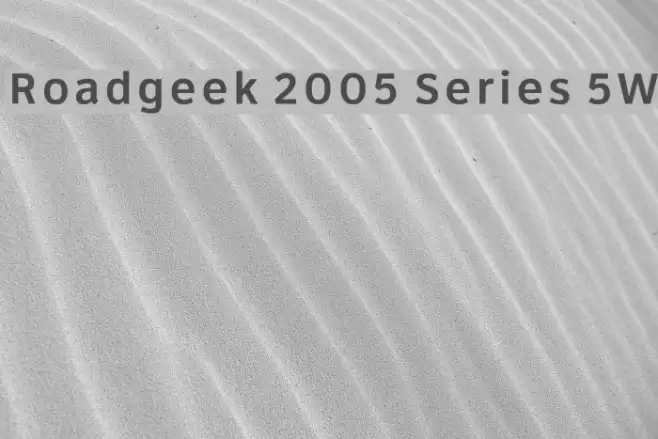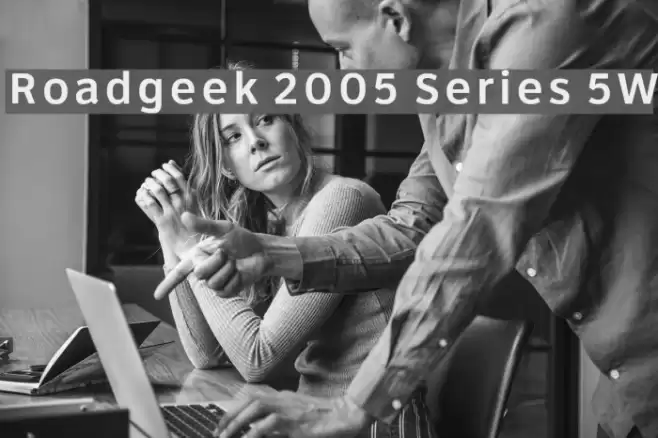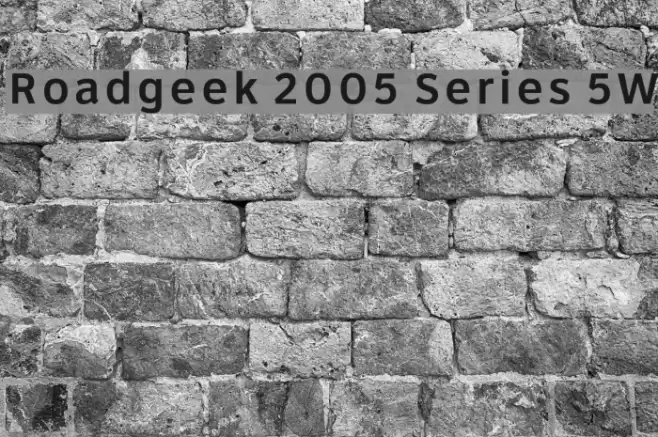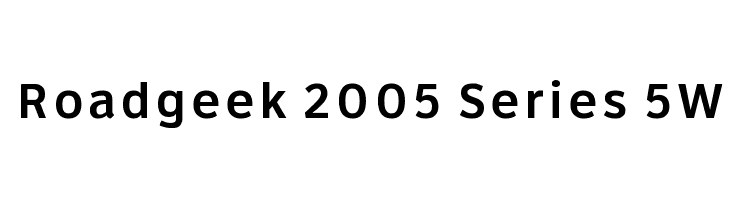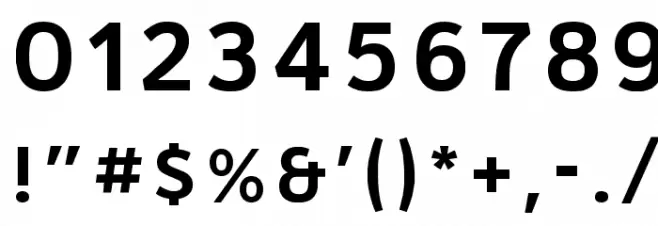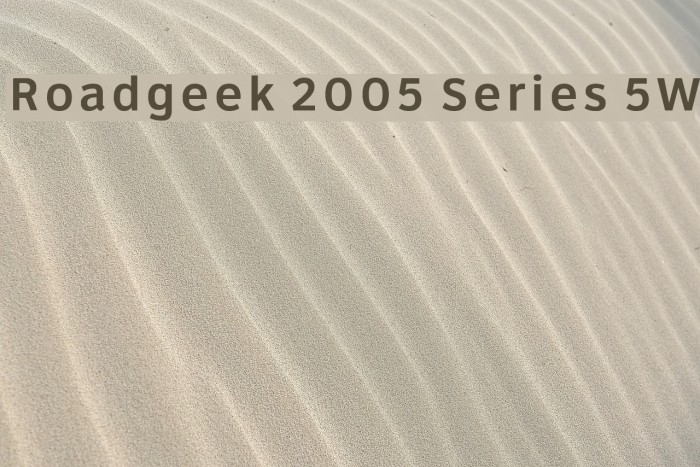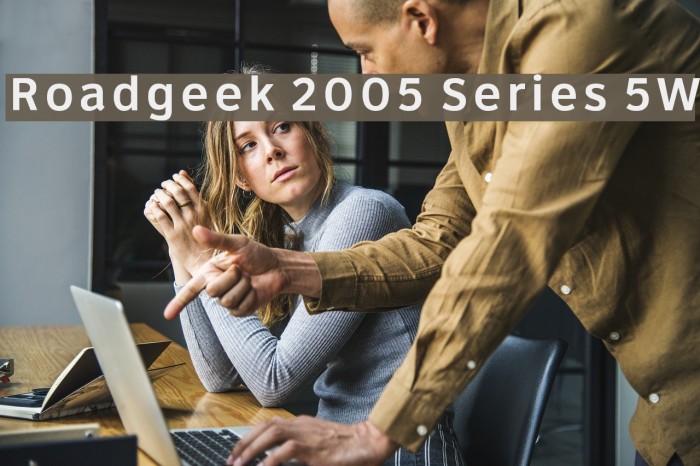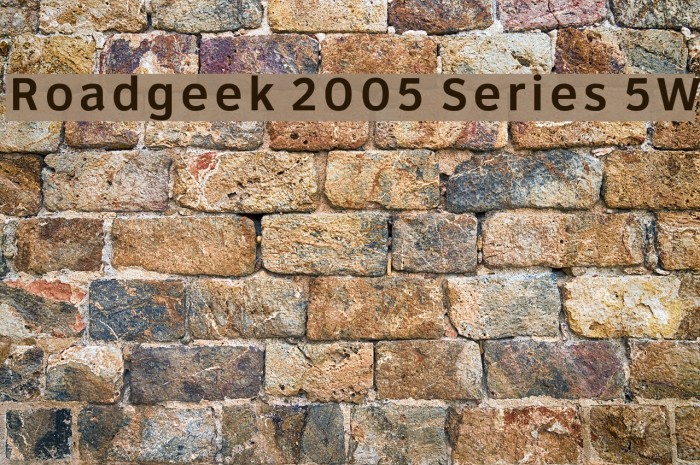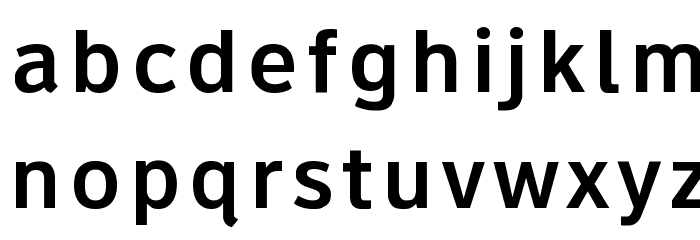
Roadgeek 2005 Series 5W Font
Roadgeek 2005 Series 5W Description
This font features a clean and modern sans-serif design, characterized by its uniform stroke width and geometric shapes. The uppercase letters are bold and well-defined, providing a strong visual impact. The lowercase letters maintain a consistent style with rounded edges, enhancing readability. The numerals are clear and distinct, making them suitable for various applications. Special characters are well-integrated, ensuring versatility in design projects. Overall, the font's simplicity and clarity make it ideal for signage and informational displays.
A modern sans-serif font with bold, geometric shapes and excellent readability from Uncategorized fonts.
- Proposed Projects: Ideal for road signage, informational displays, digital interfaces, and branding materials.
- Use Case: Headlines, Signage, Displays